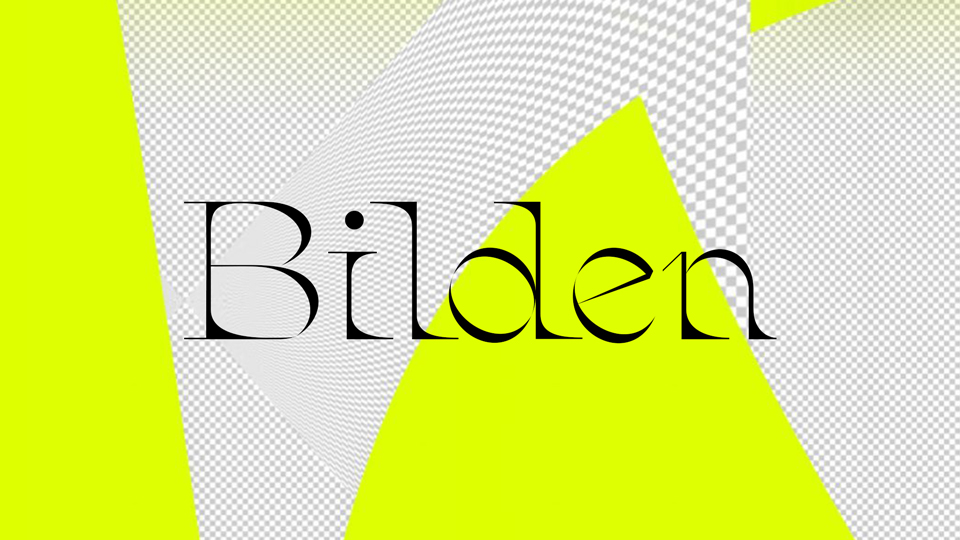
Feb 5, 2025SerifBilden Font Bilden is a contemporary typeface with high contrast shapes and sharp serifs. Perfect for posters and covers, editorial use and eye-catching typography composition. Font DetailsDesigned by: Nathan LaurentWebsiteLicense: Free for commercial use, OFL Download Bilden FontFile size: 10.35 KBCreated: February 16, 2025Updated: February 16, 2025 Download Explore similar fonts Clayze Font Monterlavia Font Maison Celeste Font Slow Bar Stories Font Bersa Serif Font Refika Mughy Font # Contemporary# Modern# Sharp More fonts by Nathan LaurentGranturismo FontFormat TypefaceFrames Typeface